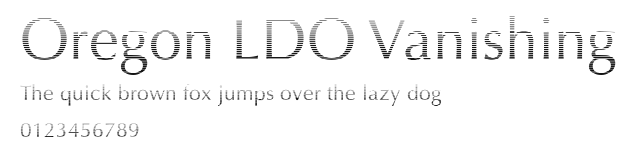
• Font Name: Oregon LDO Vanishing
• Font ID: Luke Owens: Oregon LDO Vanishing: 2004
• Full Font Name: Oregon LDO Vanishing
• Designer: Luke Owens
• Manufacturer: Luke Owens
About Oregon LDO Vanishing.ttf
Oregon LDO Vanishing.ttf is a modern, elegant sans-serif font designed for ultimate readability and visual harmony. Perfect for branding, headlines, web design, and print materials.